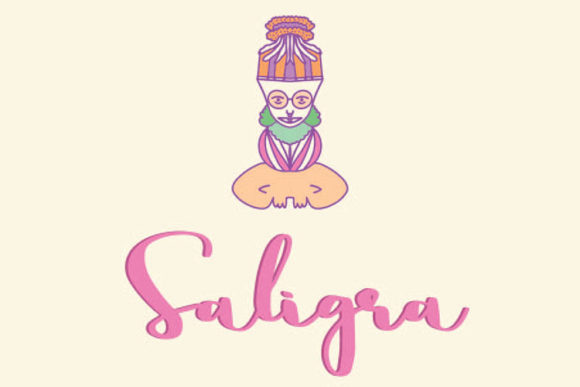
Saligra Script: Crafting Visuals That Truly Stand Out
In the crowded world of digital and print media, simply having a message isn't enough anymore. The visual delivery of that message is what separates the forgettable from the phenomenal. For designers, entrepreneurs, and content creators looking to inject a genuine sense of personality into their work, the choice of typography is critical. This is where Saligra Script enters the conversation. It is more than just a typeface; it is a creative tool designed to transform standard layouts into compelling visual narratives. If you are tired of the same generic sans serif fonts that dominate the web, exploring a premium font like Saligra offers a refreshing and sophisticated alternative that commands attention without shouting.
The Anatomy of a Modern Script Font
Understanding what makes Saligra Script effective requires looking at its visual DNA. Unlike traditional calligraphy fonts that can feel dated or overly formal, Saligra strikes a balance between organic fluidity and modern structure. It is a handwritten font that feels authentic, mimicking the natural pressure and flow of a writing instrument, yet it maintains the consistency required for professional design assets. The character spacing, or kerning, is carefully calibrated to ensure that letters connect naturally, creating a rhythmic flow that guides the reader’s eye across the page. This makes it a standout choice for display font applications where the goal is to evoke emotion and elegance.
The visual personality of this typeface is undeniably warm and inviting. It possesses a certain "human touch" that geometric fonts often lack. When you use Saligra Script, you are not just displaying text; you are conveying a mood. The slightly textured edges and varied stroke widths give it a tactile quality, making it look fantastic even on flat digital screens. It bridges the gap between a casual handwritten font and a polished commercial font, making it versatile enough for high-end branding while remaining accessible for personal projects. Whether it is used for a wedding invitation or a tech startup’s landing page, the font adapts to the context, proving its strength as a modern typography solution.
Practical Applications: From Brand Identity to Packaging
One of the greatest strengths of Saligra Script is its versatility across different mediums. In the realm of logo design, a script font can often make or break the brand identity. Saligra offers a distinctiveness that helps businesses stand out in saturated markets. It works exceptionally well for boutique brands, lifestyle blogs, coffee shops, and fashion labels where the aesthetic needs to feel personal and curated. However, its application extends far beyond just logos. In packaging design, the font can add a layer of perceived value. A product label featuring a high-quality script font often feels more artisanal and premium than one using standard block letters.
For digital creators and marketers, the utility of this typeface is equally impressive. Social media graphics require instant impact, and the flowing nature of Saligra Script helps create scroll-stopping content. It is perfect for quotes, headers, and call-to-action overlays on images. In web design, it should be used strategically—primarily for headings or accent text—rather than for body copy. This creates a strong visual hierarchy, drawing the visitor's attention to the most important information first. Publishers and editorial designers can also leverage this font for pull quotes or chapter headings to break the monotony of long-form serif or sans serif body text, adding a touch of elegance to the reading experience.
Mastering the Pairing and Hierarchy
While Saligra Script is stunning on its own, its true power is often realized through effective font pairing. Because it is a display font with high visual personality, it pairs best with something clean and understated. A common mistake in design is pairing a complex script with an overly decorative serif font, which results in visual clutter. Instead, consider pairing Saligra with a clean sans serif font or a simple, readable serif font for the body text. This contrast allows the script to shine as the focal point while ensuring the overall design remains professional and easy to read.
Readability is a crucial factor in typography. While Saligra Script is legible for short phrases, titles, and headings, it is not designed for long paragraphs of small text. This is a characteristic of most script fonts; their intricate connections between letters can become visually heavy at small sizes. Therefore, using it for "pull quotes" or "hero text" is the best practice. For entrepreneurs creating marketing materials, this means using the script for the headline of a flyer or the main title of a brochure, then switching to a standard typeface for the details. This approach ensures that your message is both beautiful and accessible to your target audience.
Evaluating Fit and Commercial Licensing
Before integrating any new font into your toolkit, practical considerations must be addressed. When evaluating if Saligra Script is right for your project, consider the "voice" of your brand. Does your brand identity rely on warmth, creativity, and connection? If yes, this font is likely a strong candidate. If your brand is strictly corporate, minimalist, and rigid, a script might feel out of place. Always test the font with your specific content. Type out the actual words you plan to use—your business name, your tagline—to see how the specific letterforms interact.